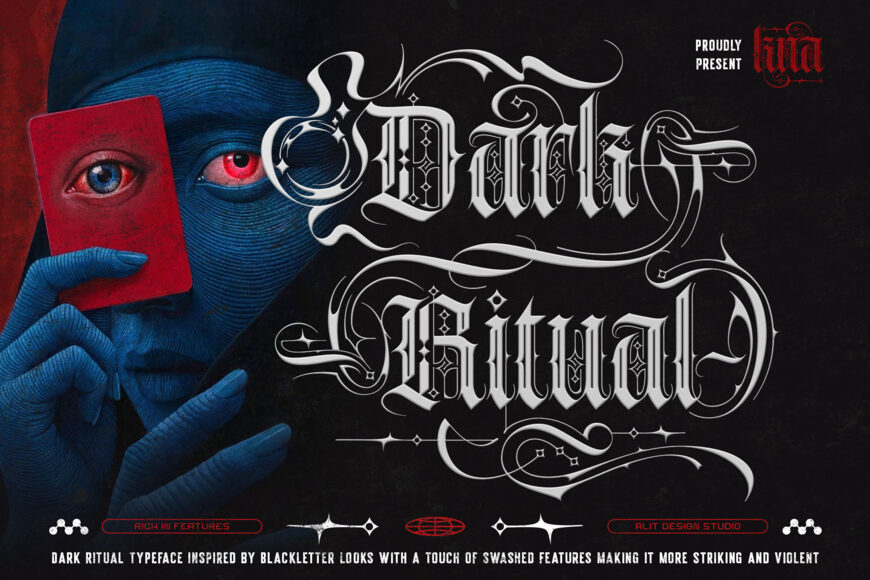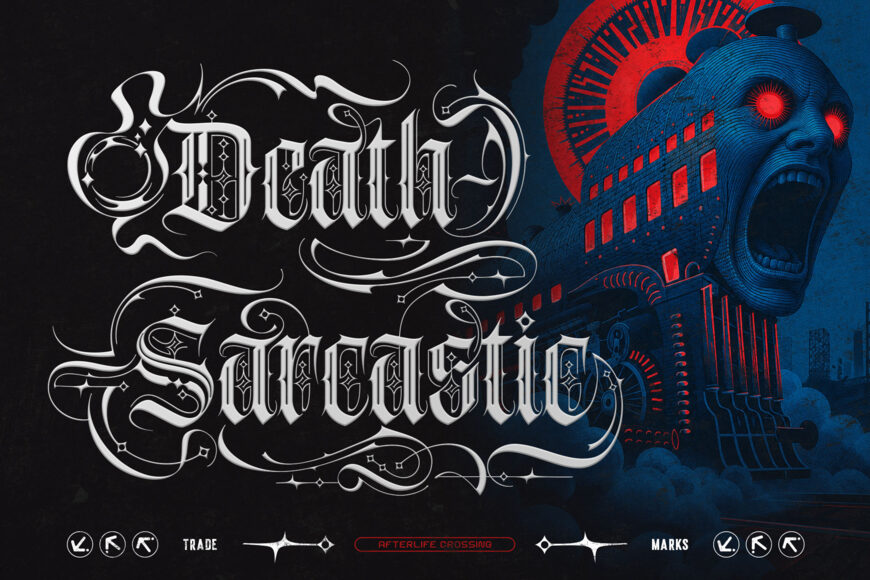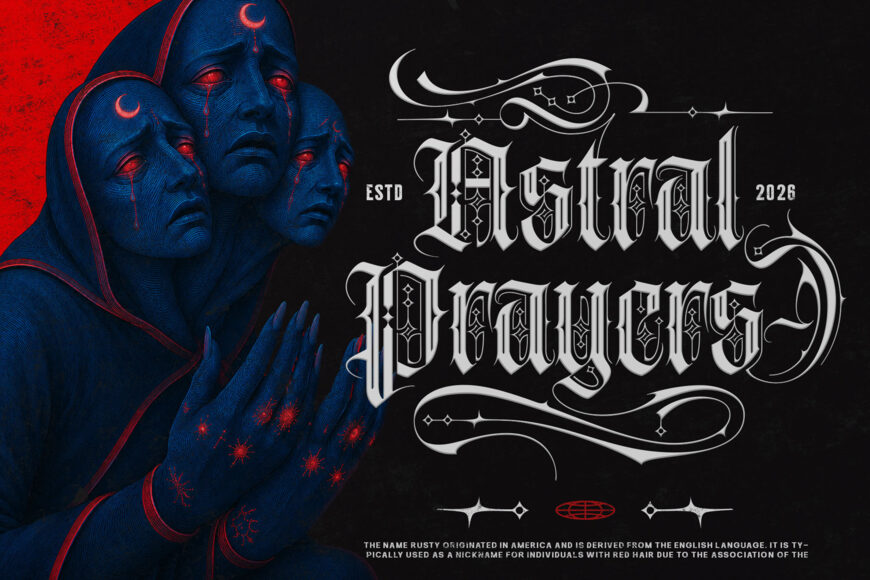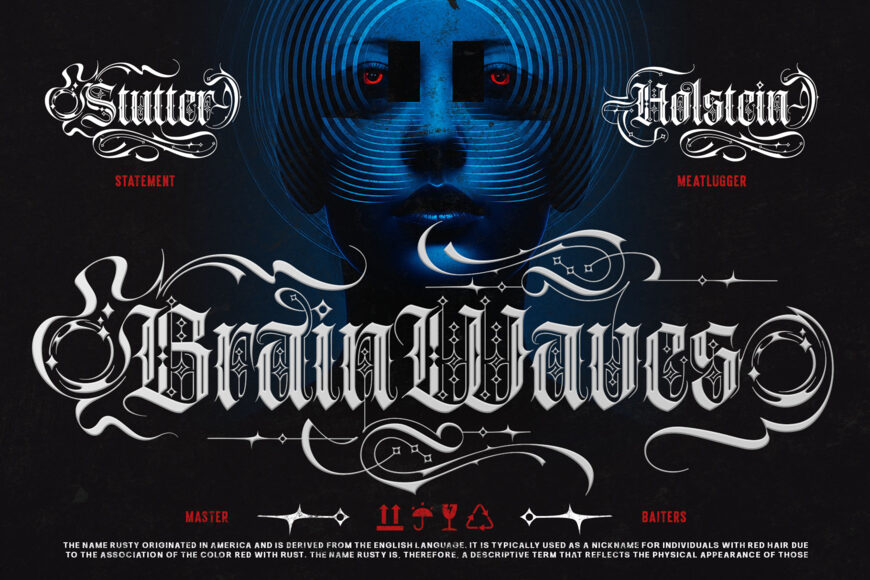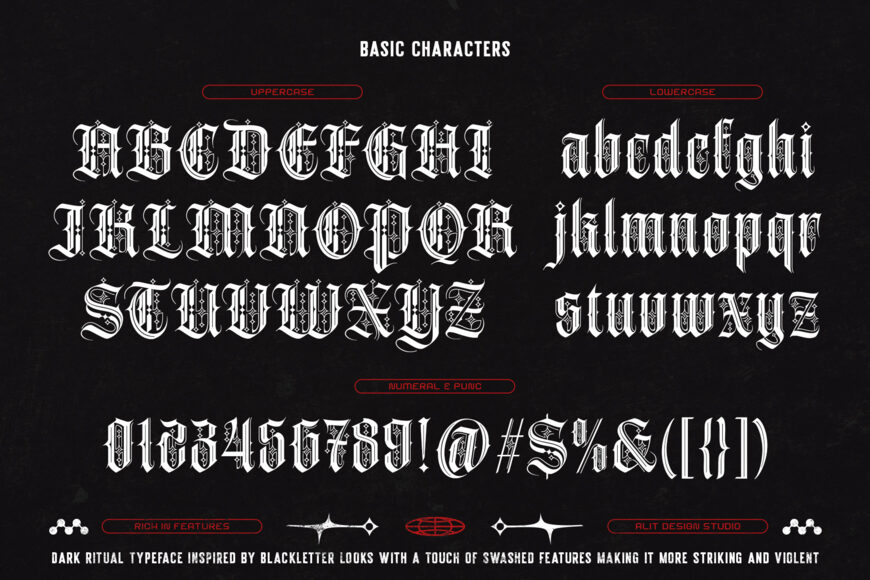
Dark Ritual Font
Embrace the shadows with Dark Ritual Typeface, a mesmerizing blackletter font designed to make a striking and bold statement. Inspired by classic gothic lettering, Dark Ritual introduces a modern, aggressive edge infused with sweeping swashes and intricate detailing. Whether you are aiming for an eerie, sarcastic, or aggressively stylish aesthetic, this typeface delivers an unmistakably powerful presence that demands attention.
Perfect for projects that require a touch of the macabre or rebellious spirit, Dark Ritual is highly versatile. It is the ultimate typography choice for metal band merchandise, streetwear apparel, tattoo studio branding, striking posters, album covers, and edgy editorial designs.